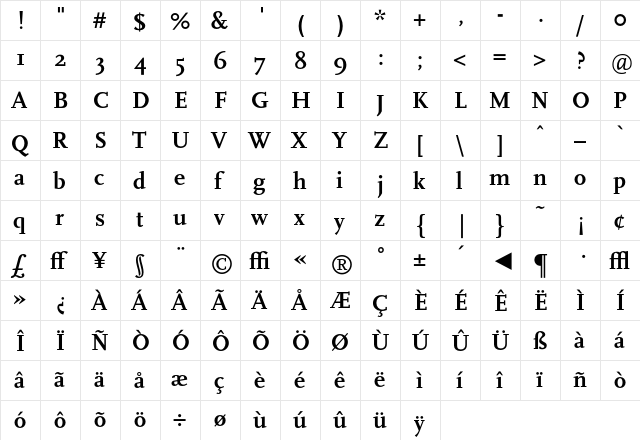
FFScala-Bold Regular
Design Context for FFScala-Bold Typeface
FFScala-Bold takes a measured approach to typography — its balanced proportions and neutral character make it a reliable workhorse for both digital and print work. Its bold stroke weight gives it real presence on the page.